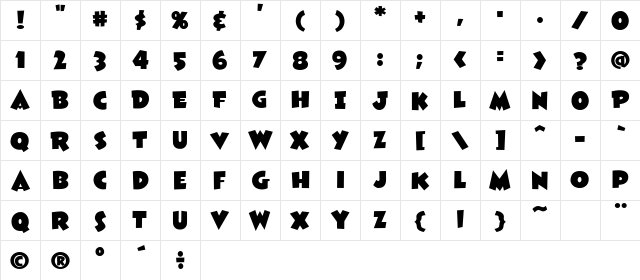
CCThatsAllFolks Bold Free Font
CCThatsAllFolks Bold
CCThatsAllFolks Family
CCThatsAllFolks Bold
Design Context for CCThatsAllFolks
CCThatsAllFolks is a composed and adaptable typeface that performs quietly and consistently across a wide range of design contexts. Its bold stroke weight gives it real presence on the page.